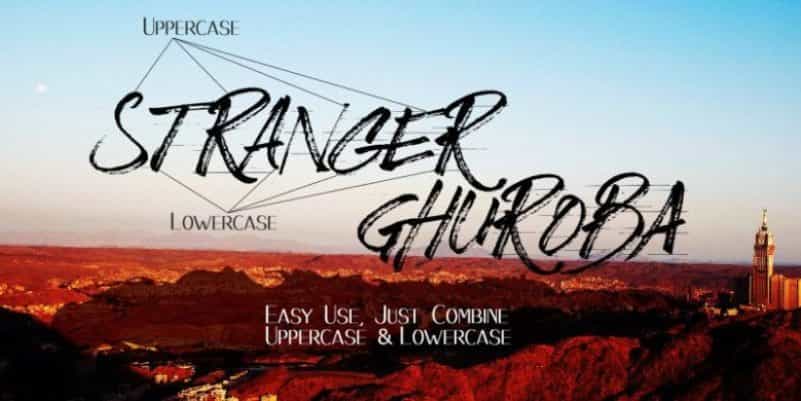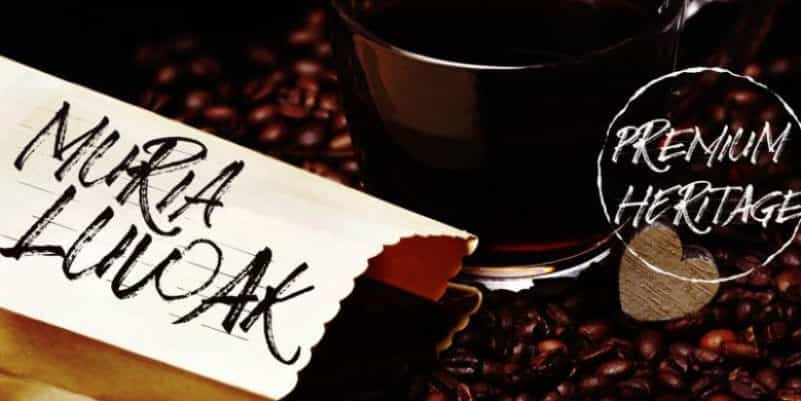
Bizardless Font is a casual, spontaneous, brushy look script font. It has two full character sets and additional characters for frequently used letters for a true hand-lettered appearance on the project. It has complete punctuation and supports multilingual. In fact, the font is quite distinctive just by the use of the upper and lower case. A brush font that you will find genuinely good.